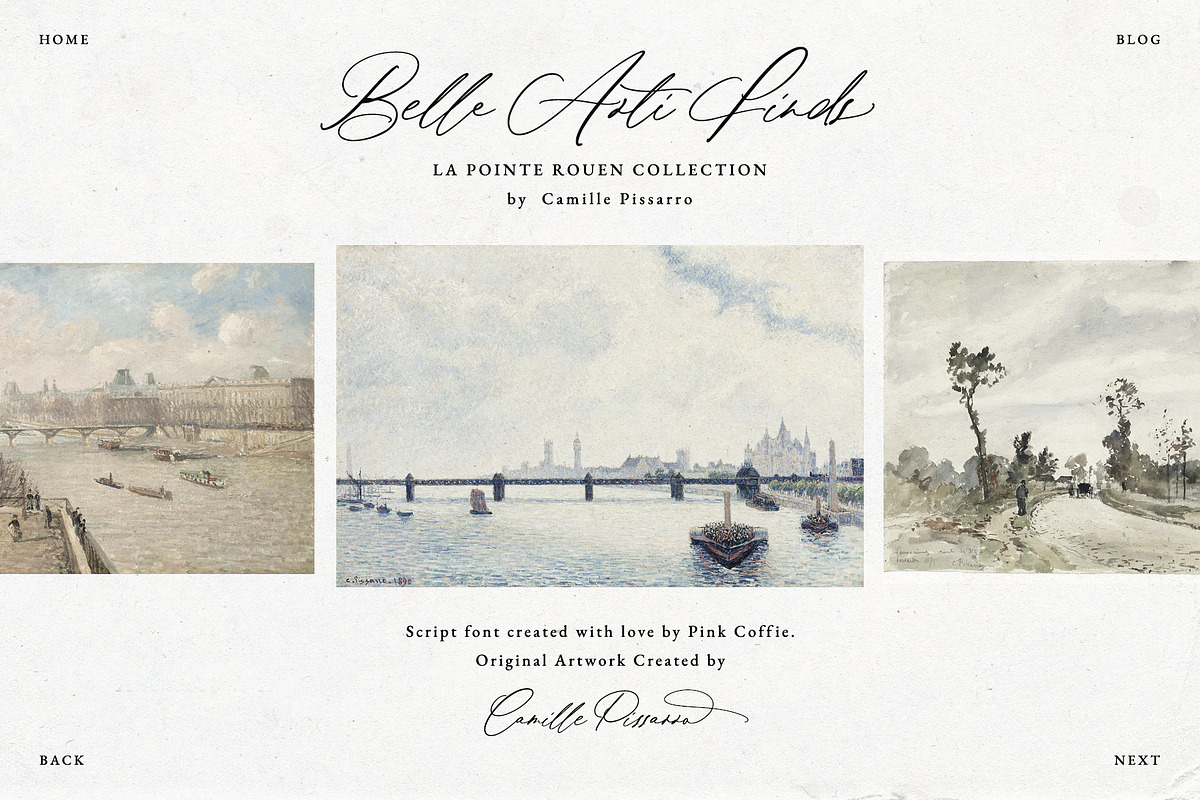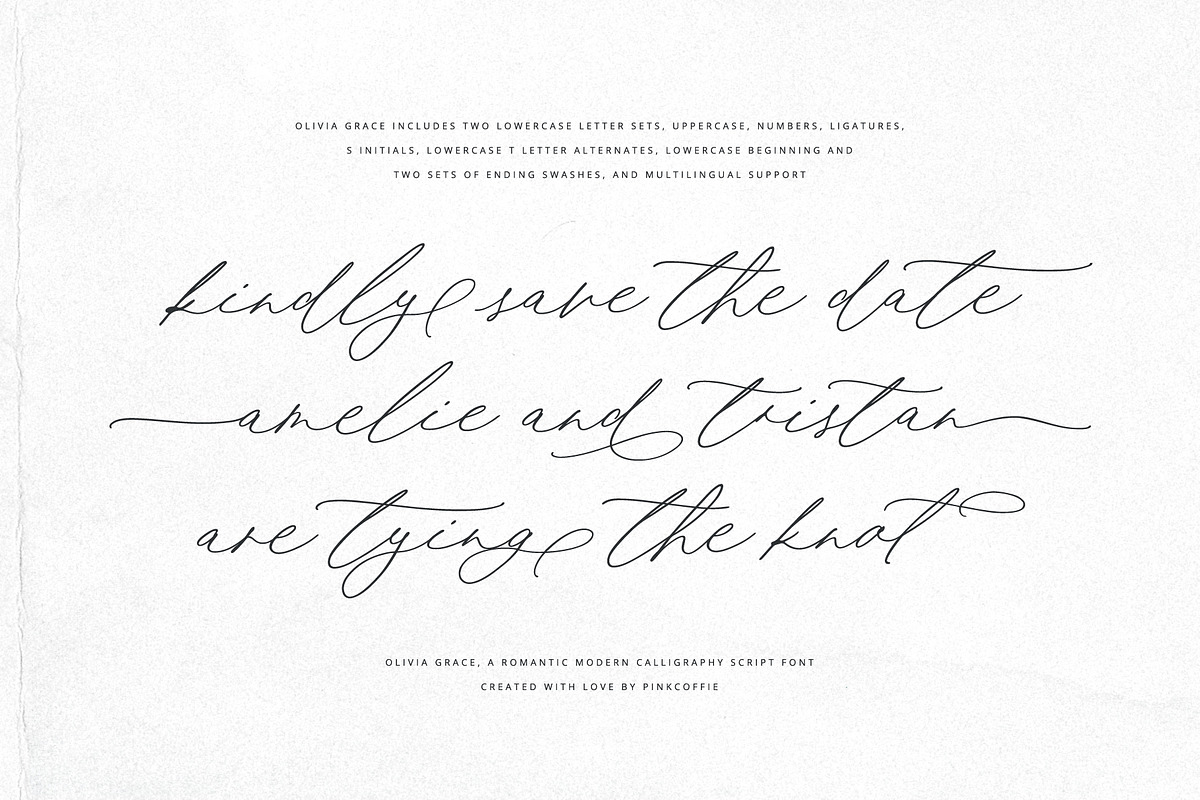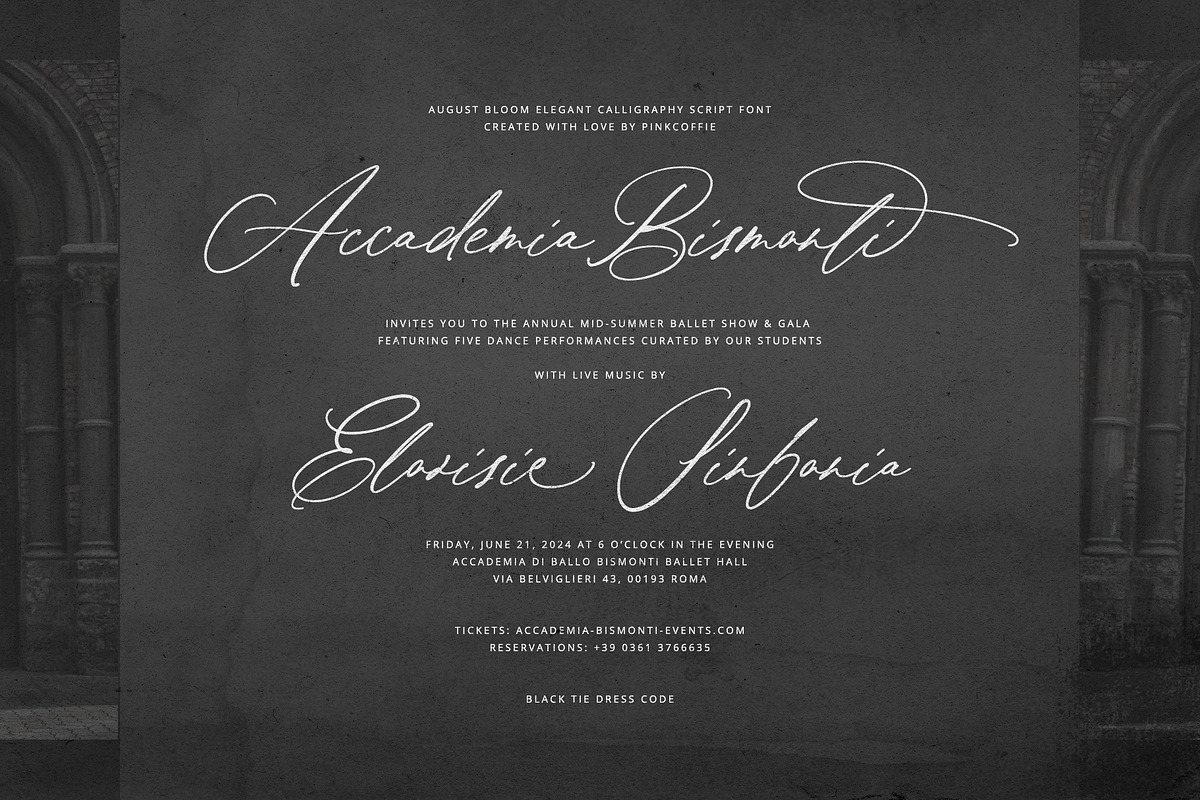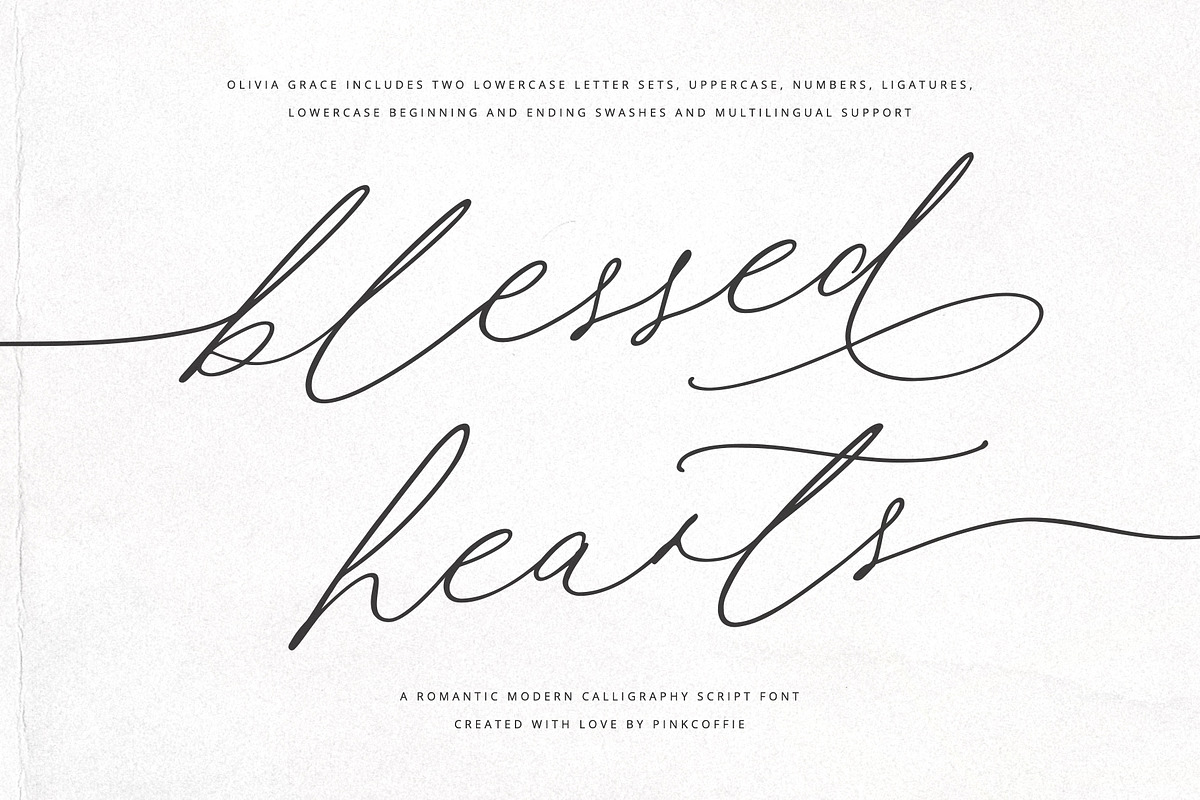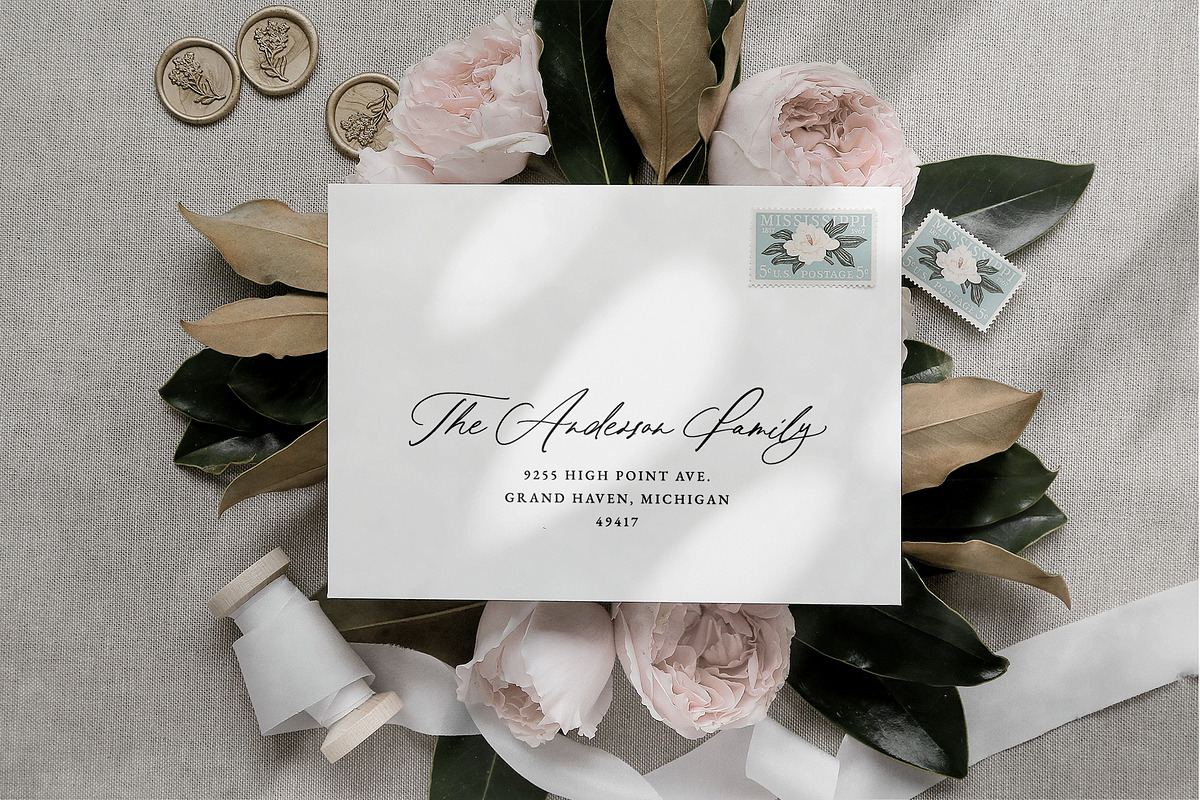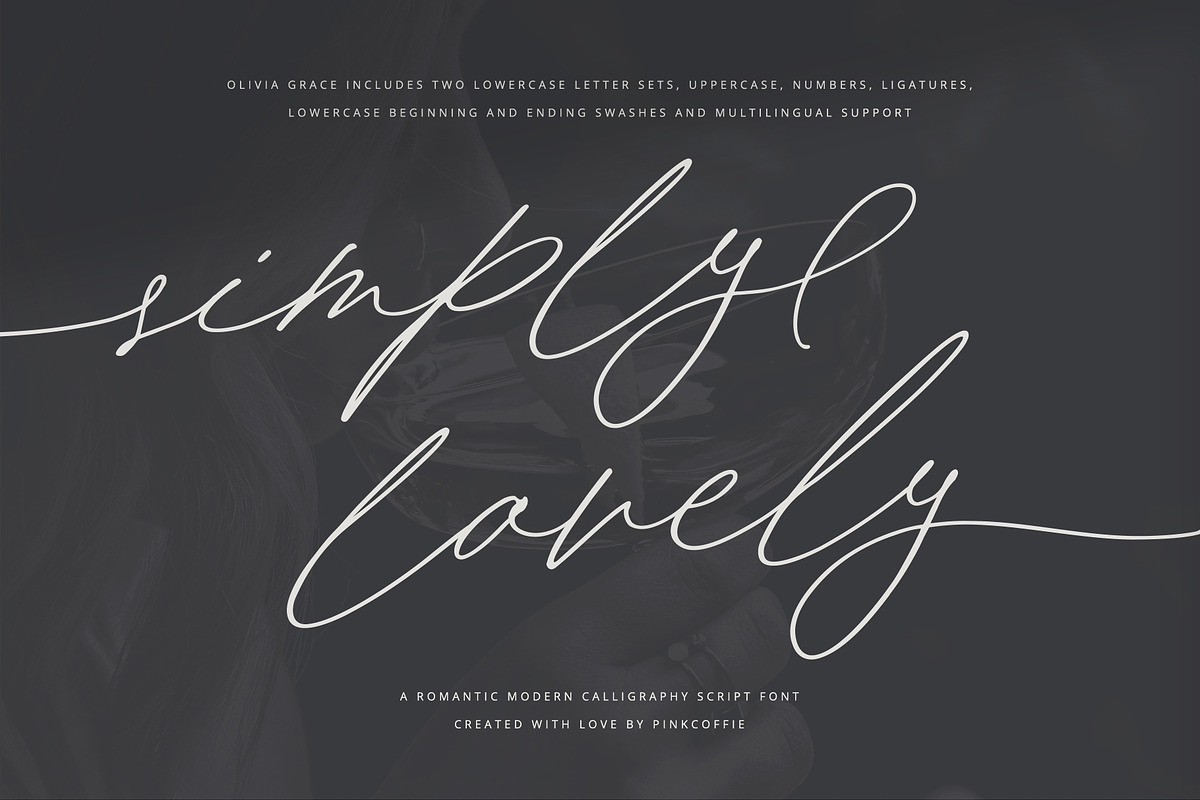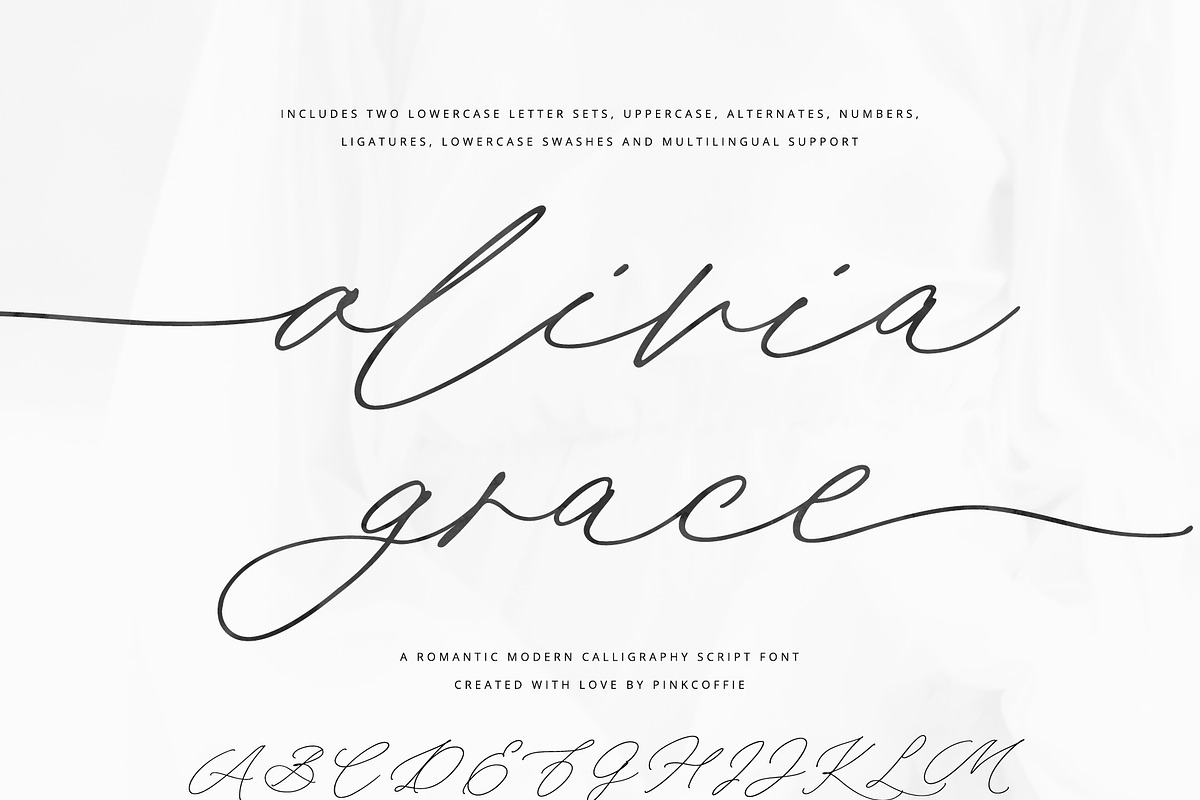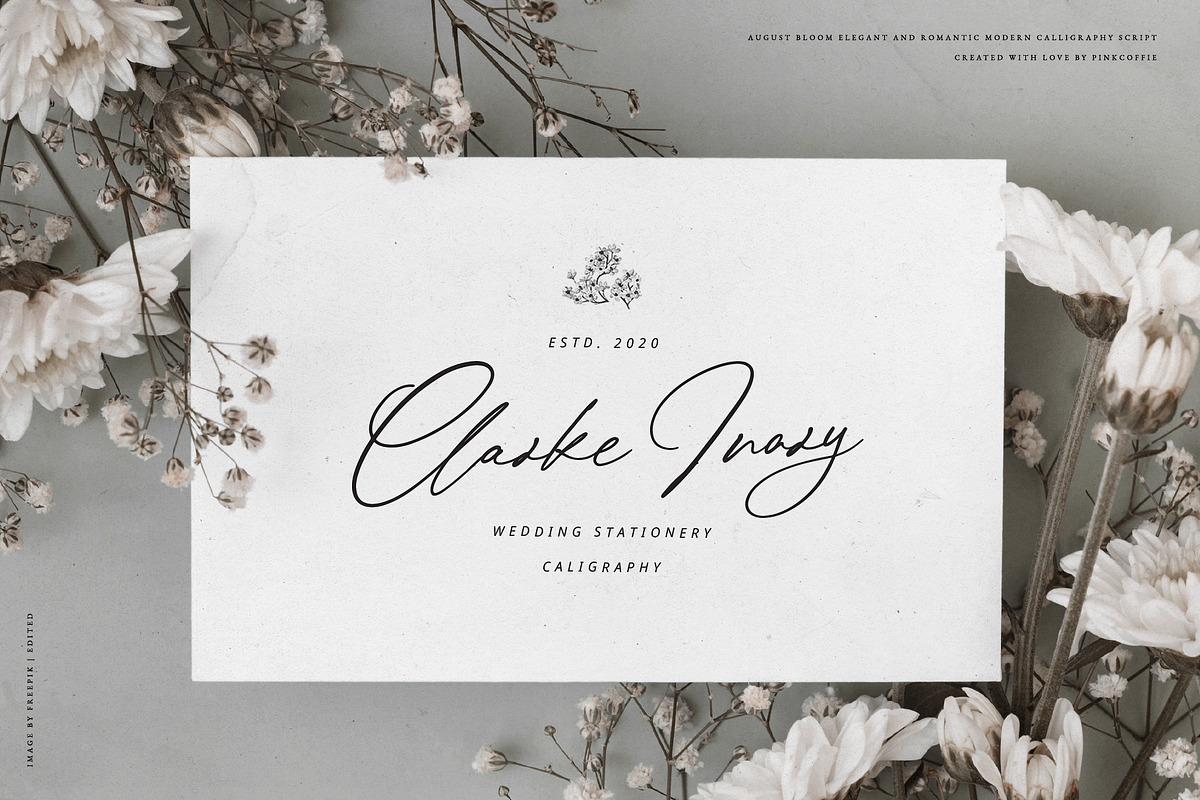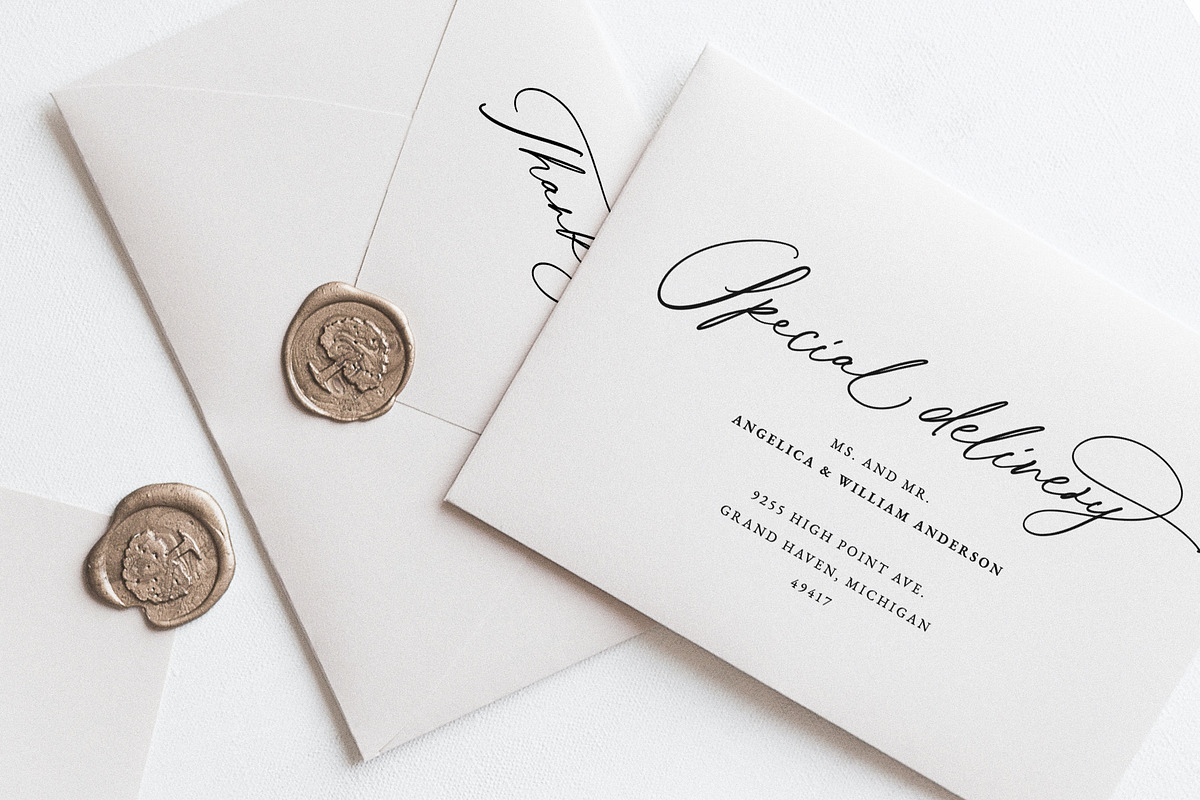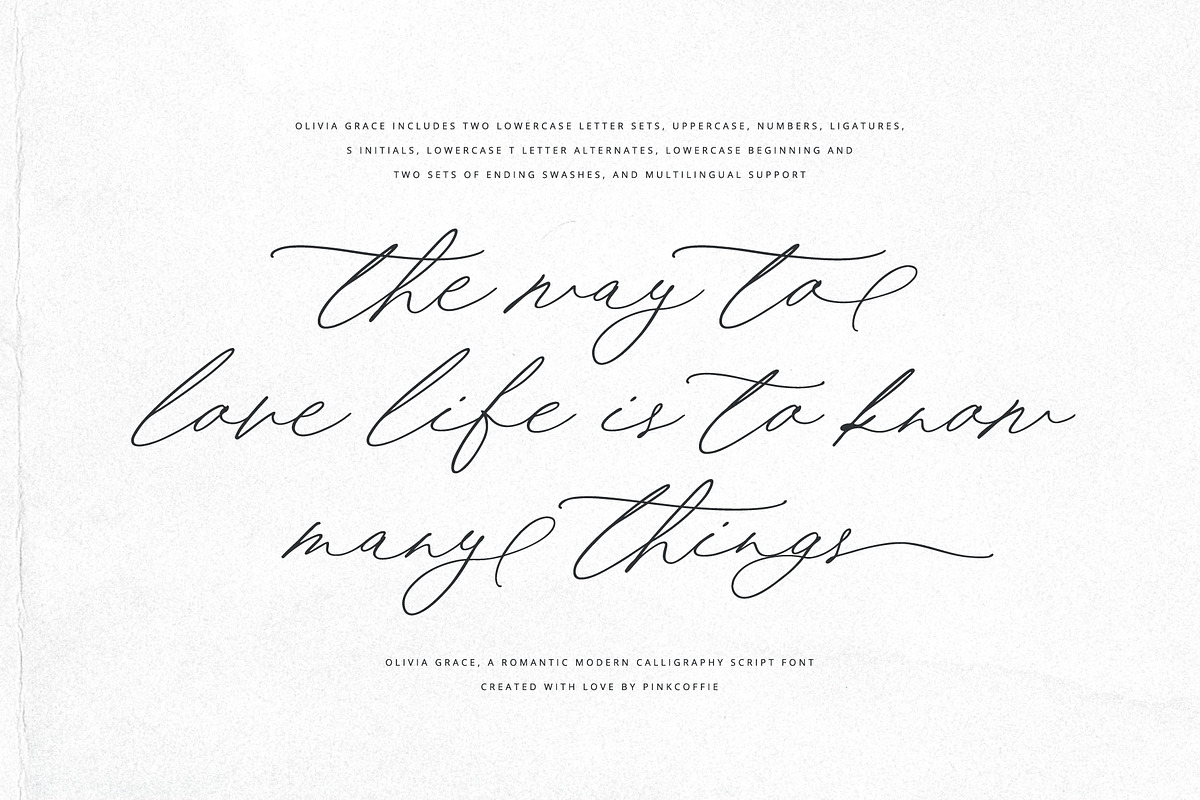
Wedding Calligraphy Font Duo Bundle
Olivia Grace and August Bloom are elegant, romantic & timeless modern calligraphy script fonts that were designed mainly for wedding stationery designs and save the date cards, but can be used in a variety of projects including logos & branding, social media graphics, editorial designs and much more ( click on each product link above to see more details + previews )
๐ ๐๐๐ ๐๐๐๐๐๐๐: Both fonts include all standard lowercase + uppercase, numbers, punctuation & symbols plus
- ๐ฅ๐จ๐ฐ๐๐ซ๐๐๐ฌ๐ ๐ฅ๐๐ญ๐ญ๐๐ซ ๐๐ฅ๐ญ๐๐ซ๐ง๐๐ญ๐๐ฌ
- ๐ฅ๐จ๐ฐ๐๐ซ๐๐๐ฌ๐ ๐ฌ๐ฐ๐๐ฌ๐ก๐๐ฌ ( at least one set )
- ๐๐จ๐ฎ๐๐ฅ๐ ๐ฅ๐๐ญ๐ญ๐๐ซ ๐ฅ๐ข๐ ๐๐ญ๐ฎ๐ซ๐๐ฌ
- ๐ฆ๐ฎ๐ฅ๐ญ๐ข๐ฅ๐ข๐ง๐ ๐ฎ๐๐ฅ ๐ฌ๐ฎ๐ฉ๐ฉ๐จ๐ซ๐ญ